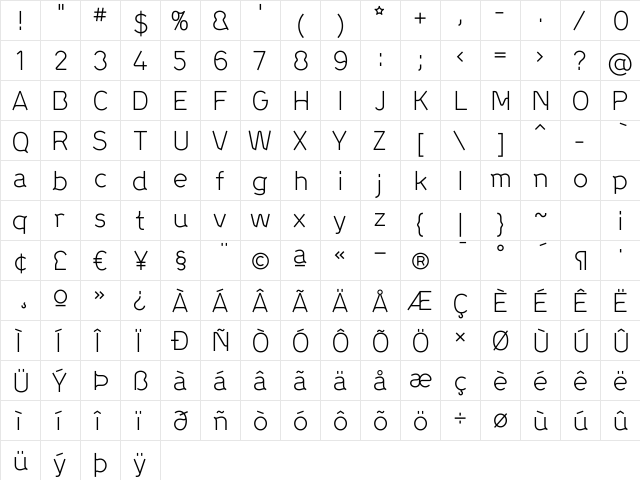
ProgressLight Regular
Design Context for ProgressLight Typeface
ProgressLight offers clean, dependable letterforms without strong stylistic allegiance, making it a practical choice for designers who need flexibility. The delicate stroke weight brings airiness and refinement to layouts.
Pro Tip: Use ProgressLight in both headline and body roles to test its range before committing to a single application.